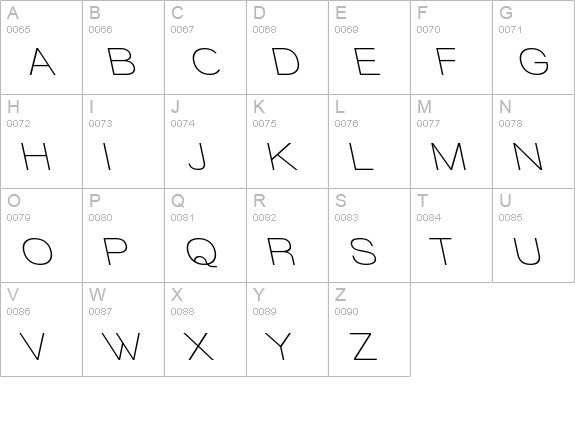
Walkway SemiBold RevOblique is a sub-bold, structured variant in the Walkway typeface family \xE2\x80\x94 well suited to sub-headlines and emphasised passages.
The Walkway SemiBold RevOblique font is a unique and eye-catching typeface that effortlessly combines boldness with elegance. Its semi-bold weight gives it a strong and commanding presence, making it perfect for headlines, titles, and other attention-grabbing text. What sets the Walkway SemiBold RevOblique font apart is its beautifully slanted and slightly twisted letters, adding a touch of sophistication and modernity to any design. The sleek and stylish curves of each character make for a dynamic and captivating visual experience. This font is not only visually appealing but also highly versatile, making it suitable for a wide range of projects. Whether you're designing a striking logo, a professional business card, or even a sleek website, the Walkway SemiBold RevOblique font will elevate your design to new heights. What's even better is that this font is freely available to download at FontsMarket.com. This means that you can add this stunning typeface to your font collection without breaking the bank. Whether you're a professional designer or a hobbyist, the Walkway SemiBold RevOblique font is a valuable addition to your toolkit. So why wait? Download the Walkway SemiBold RevOblique font today and let its bold and captivating presence enhance your designs like never before.